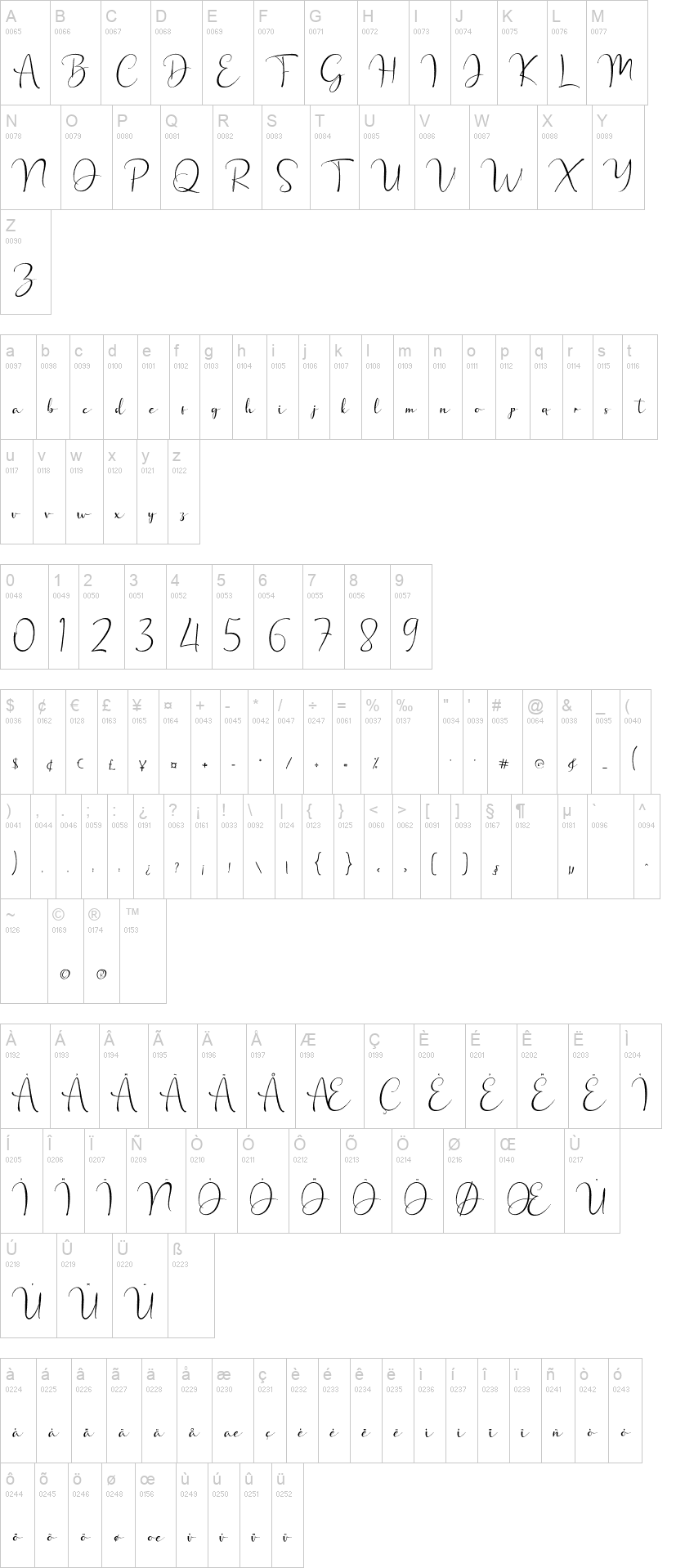
Note of the authorChasti is a stunning hand-lettered script font. It has a unique natural dry-brush feel which will outstand your project with ease! Combine it with its remarkable swashes and you will be impressed!